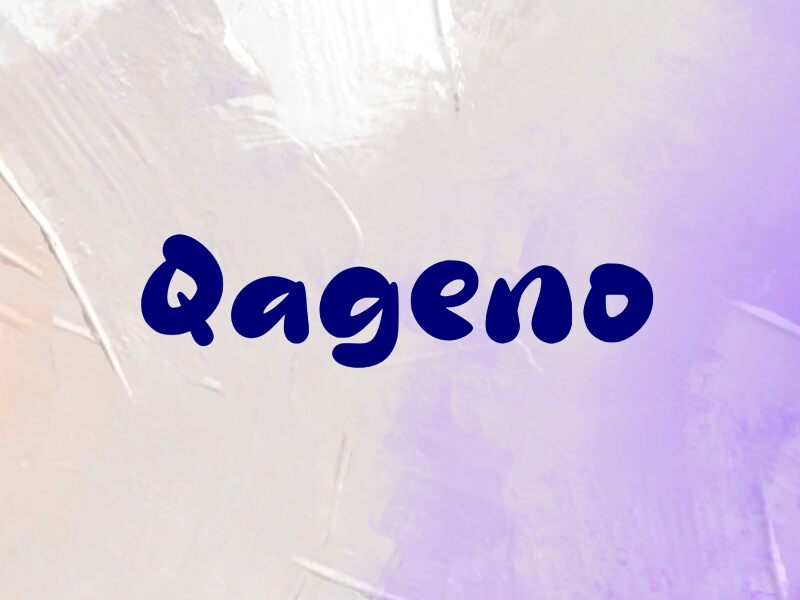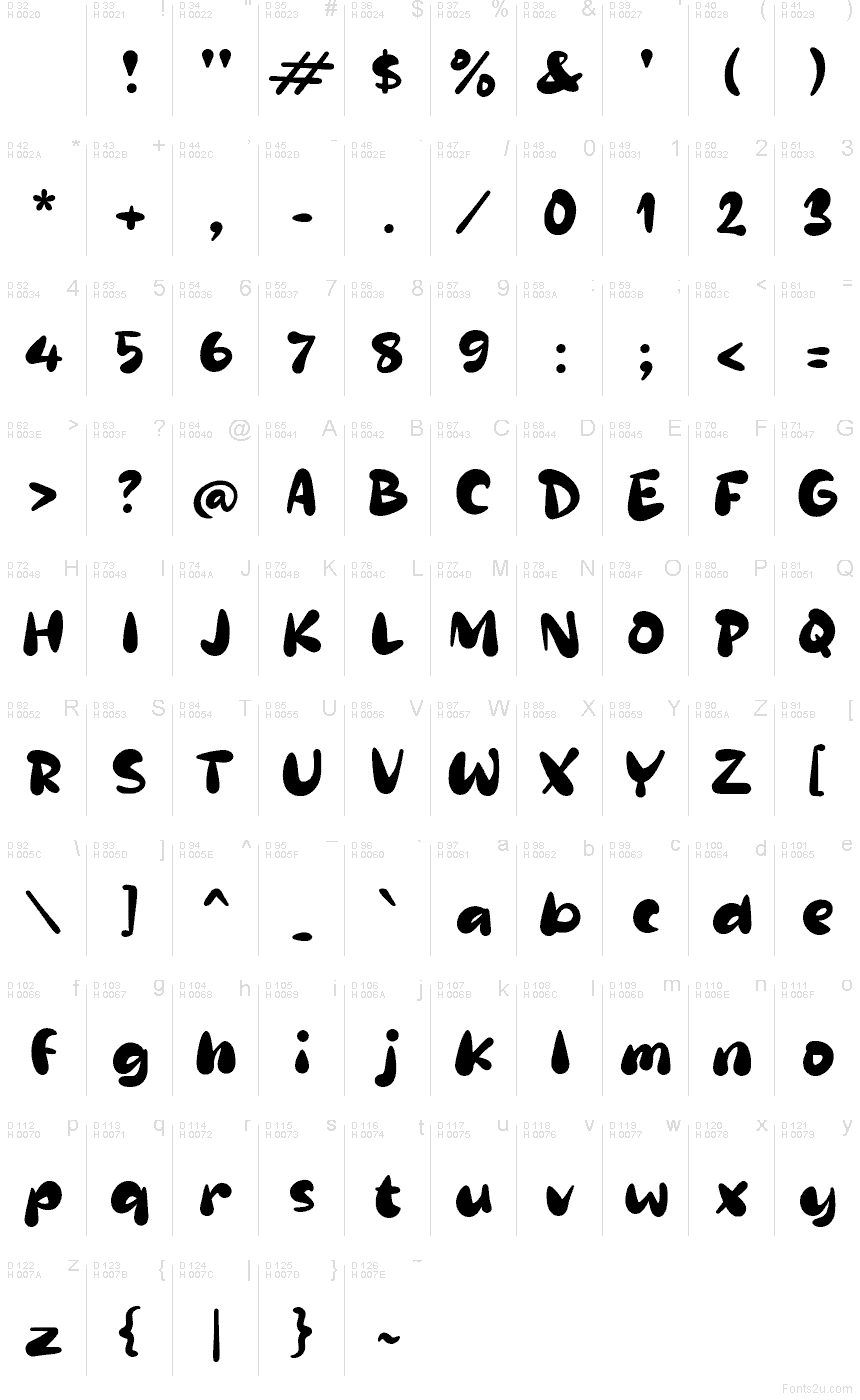
Qageno
Qageno font by wep is a free cartoon display typeface with a bold, inky personality that feels like it’s been brushed onto the page in one confident sweep. The chunky, rounded shapes and slightly uneven strokes give it a bouncy, hand-drawn energy that reads instantly fun and friendly. It’s the kind of lettering that looks like it could jump off a cereal box, splash across a poster, or headline a kids’ YouTube channel intro.
Using Qageno, this free font shines on children’s book covers, game logos, snack packaging, birthday invitations, playful social posts, and sticker designs. Its thick, black forms hold up beautifully at large sizes and on bright, colorful backgrounds. For a simple pairing, match Qageno with a clean geometric sans for body copy to let the inky cartoon letters stay center stage.